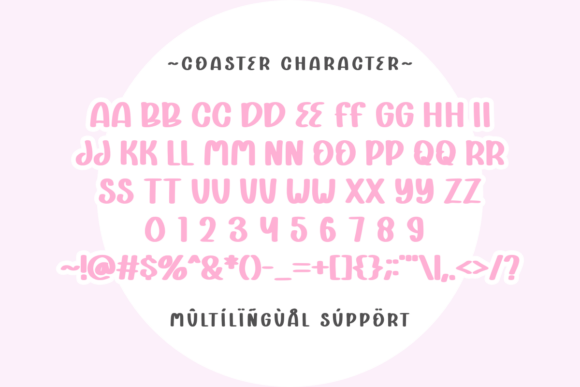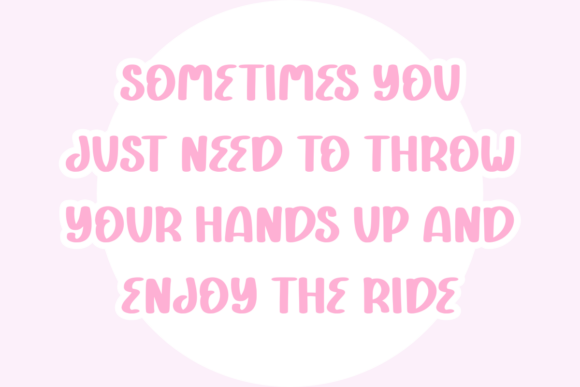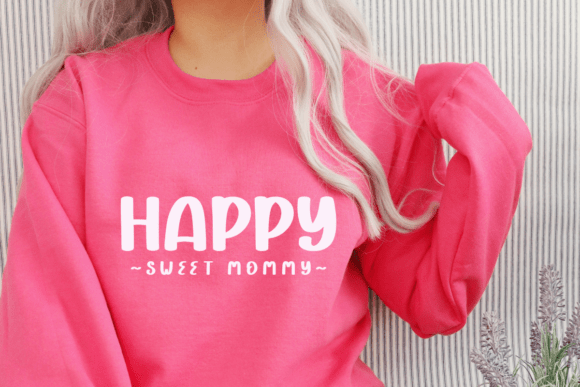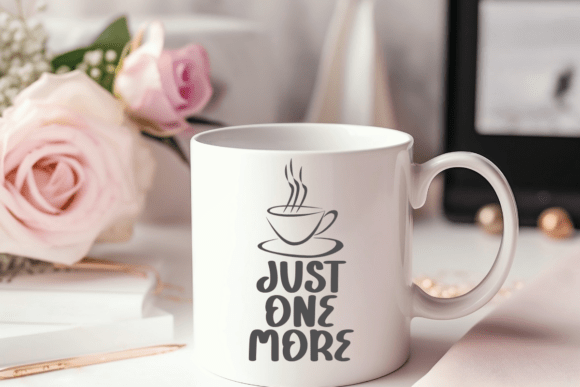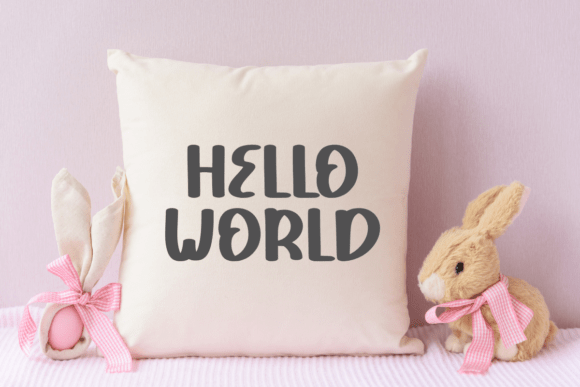
Introducing Coaster Font: The Ultimate Holiday Cheer Companion for Designers and Crafters
Are you looking for a font that embodies the spirit of the holiday season? Look no further than Coaster Font, a festive and fun handwritten font that’s perfect for adding a touch of holiday cheer to your designs. With its playful curves and bold lines, Coaster Font is ideal for creating cards, invitations, and other holiday-themed graphics that are sure to delight.
What Makes Coaster Font So Special?
Coaster Font is a unique and eye-catching font that’s specifically designed to capture the magic of the holiday season. Its playful, handwritten style is reminiscent of traditional holiday decorations, making it the perfect choice for designers and crafters who want to add a personal touch to their creations.
One of the standout features of Coaster Font is its bold lines and playful curves. These characteristics give the font a lively and energetic feel that’s perfect for creating festive and fun designs. Whether you’re creating holiday cards, invitations, or social media graphics, Coaster Font is sure to make your designs stand out.
Coaster Font is a versatile font that’s perfect for designers and crafters of all skill levels. Whether you’re a professional designer or a DIY crafter, this font is easy to use and can be incorporated into a wide range of projects.
For designers, Coaster Font is a great choice for creating holiday-themed graphics, such as:
- Email newsletters and marketing materials
For crafters, Coaster Font is perfect for creating handmade holiday crafts, such as:
- Handmade cards and gift tags
- DIY holiday decorations and signs
- Customized gift wrapping and packaging
- Personalized holiday-themed scrapbooking pages
Tips for Using Coaster Font
Here are a few tips for getting the most out of Coaster Font:
- Use Coaster Font in combination with other festive fonts to create a unique and eye-catching design.
- Don’t be afraid to get creative and try out new and unusual design ideas.
- Use Coaster Font to add a personal touch to your holiday designs, such as by incorporating your name or a special message.
Coaster Font is a fun and festive handwritten font that’s perfect for adding a touch of holiday cheer to your designs. With its playful curves and bold lines, this font is ideal for creating cards, invitations, and other holiday-themed graphics. Whether you’re a designer or a crafter, Coaster Font is a great choice for anyone looking to add a personal touch to their holiday creations.